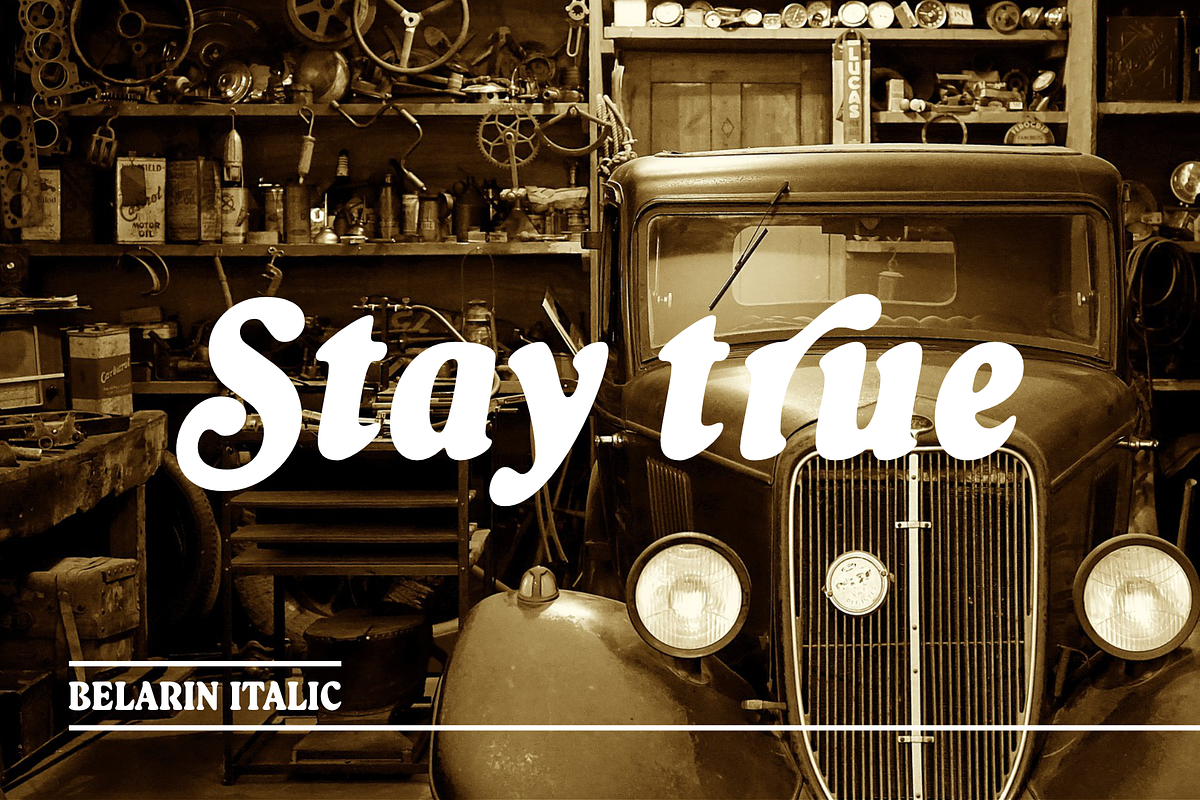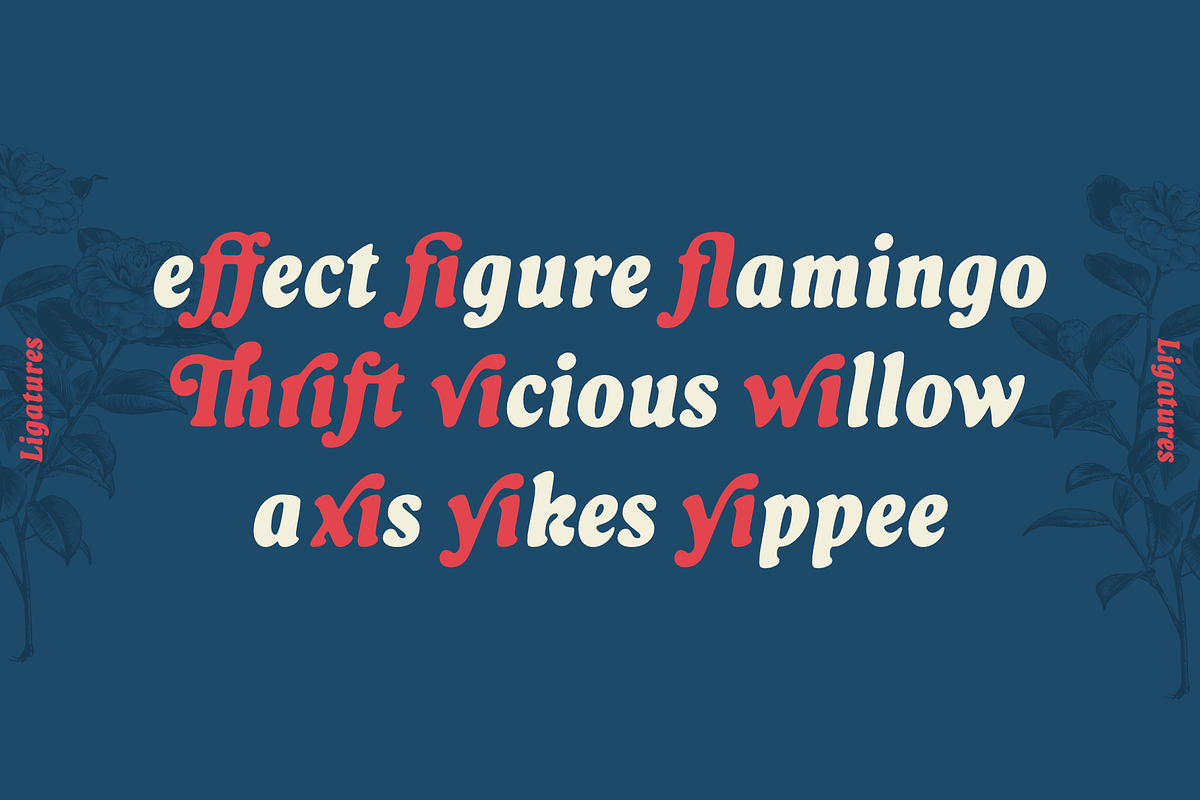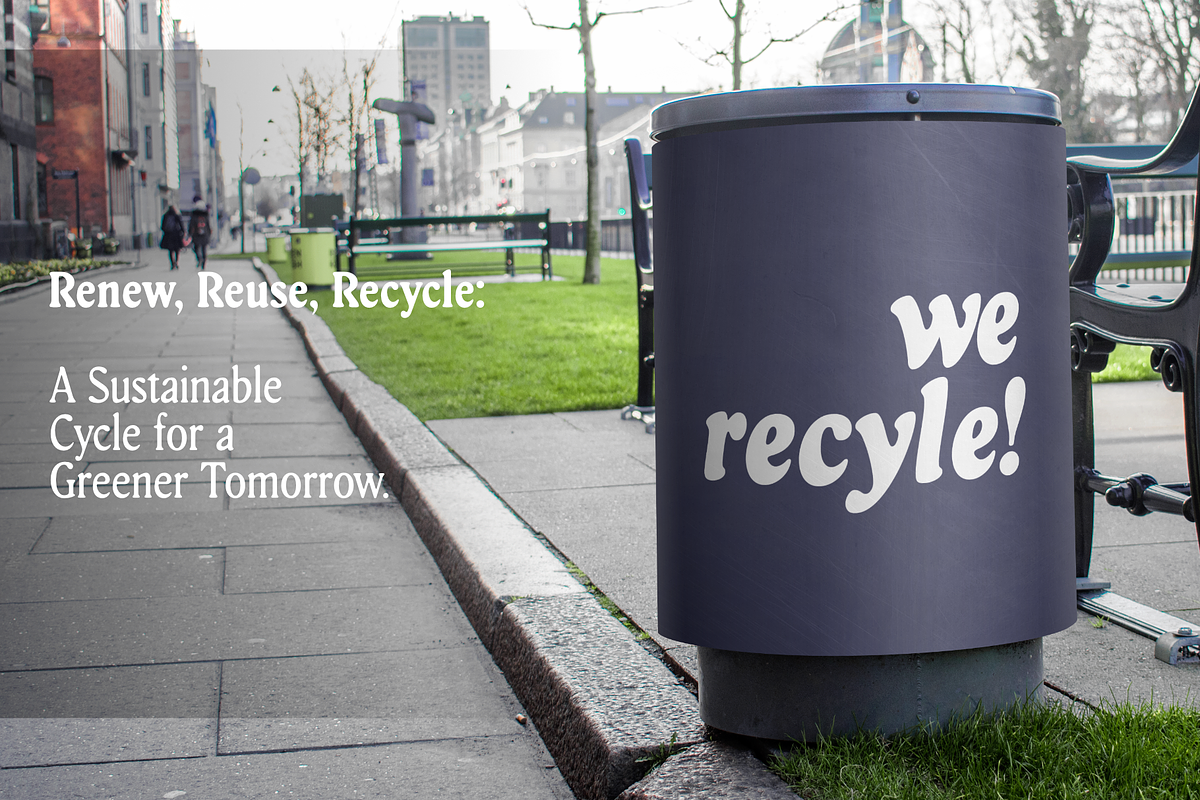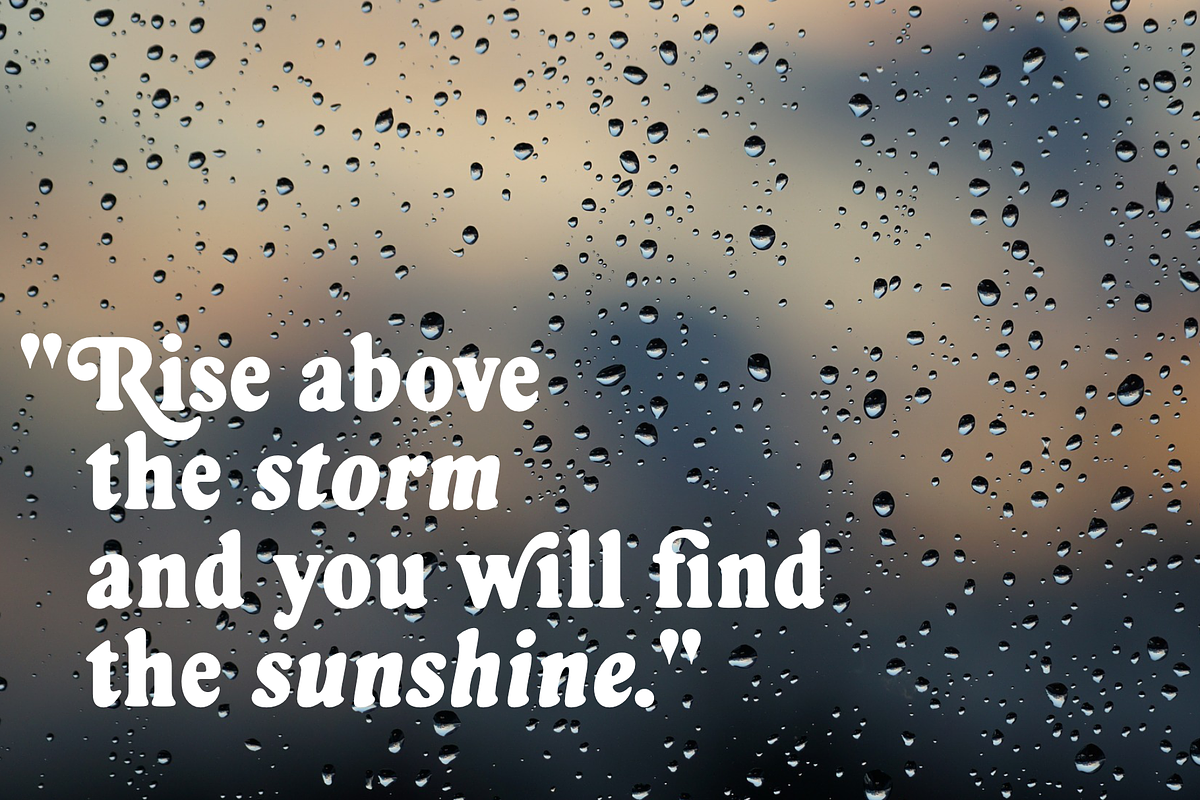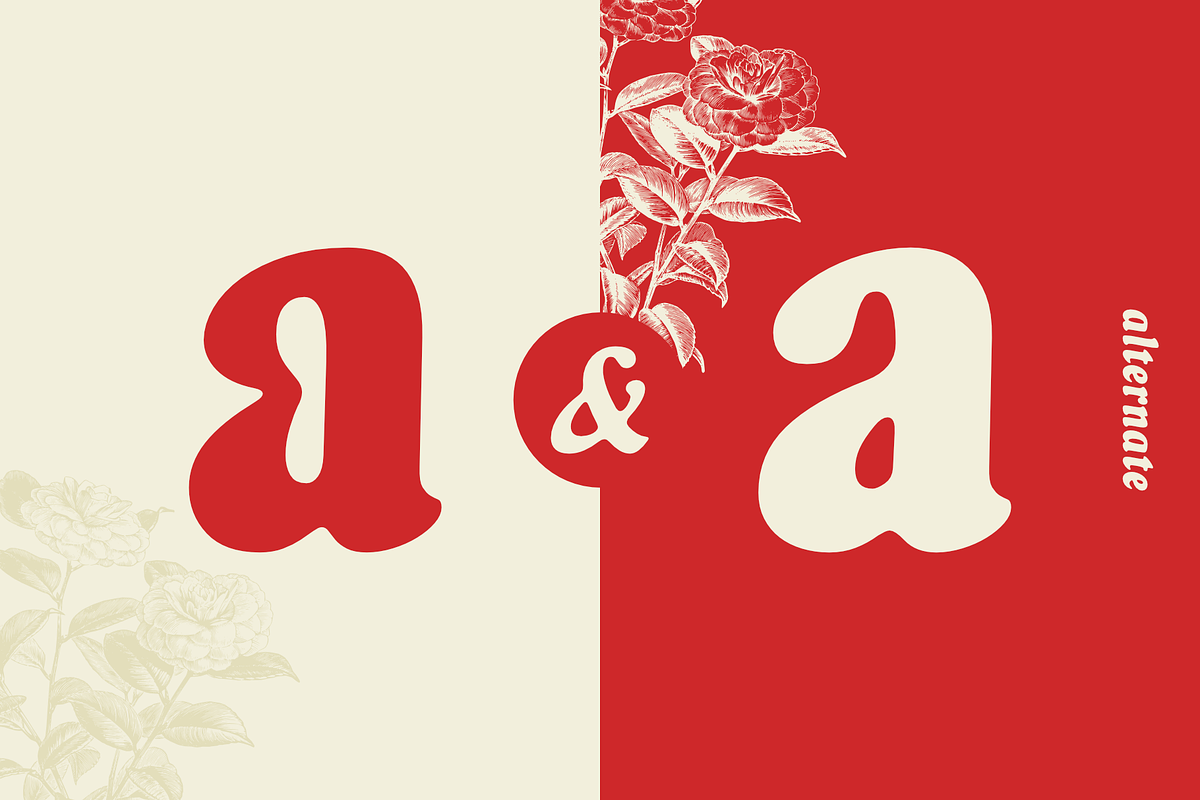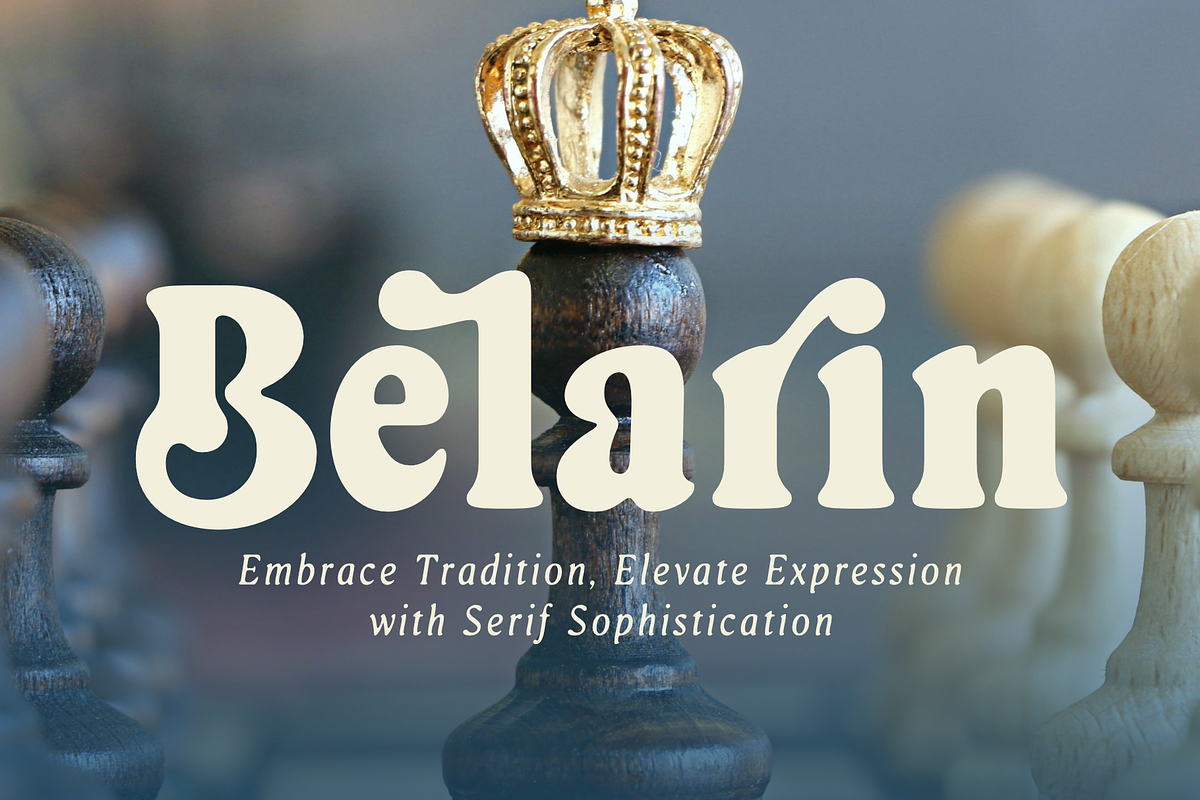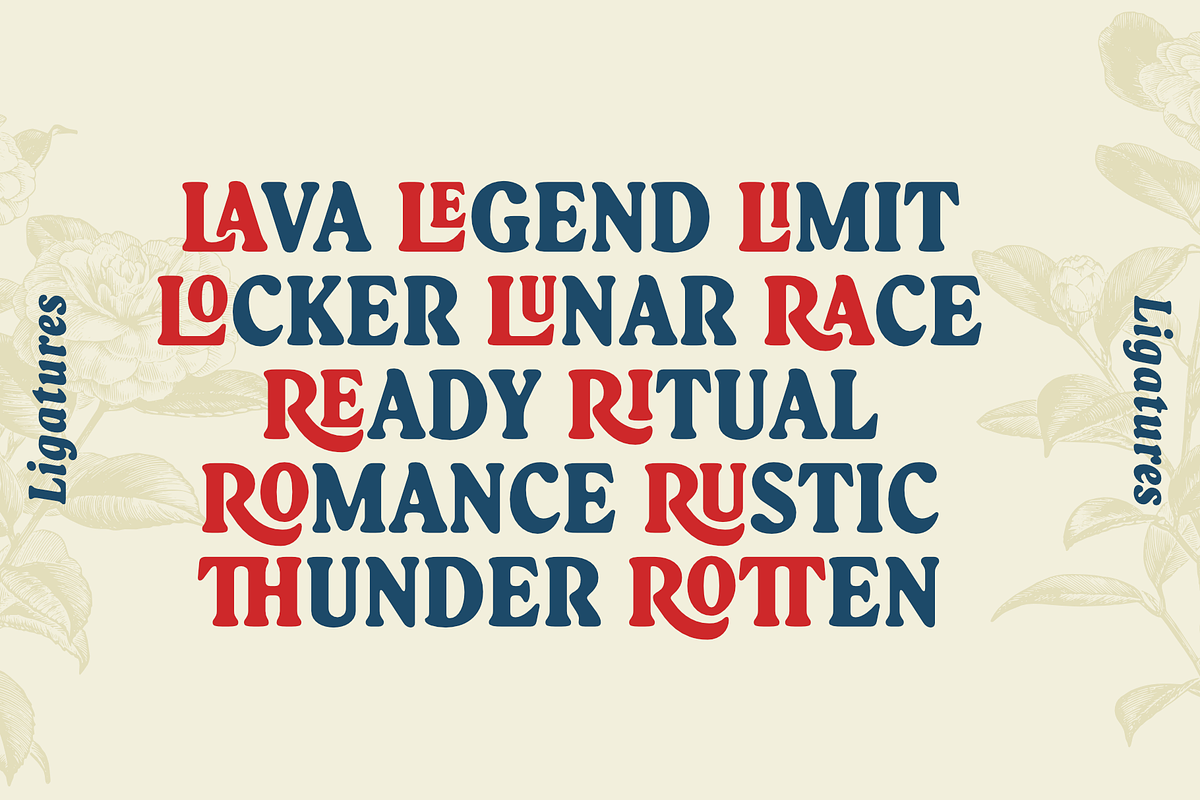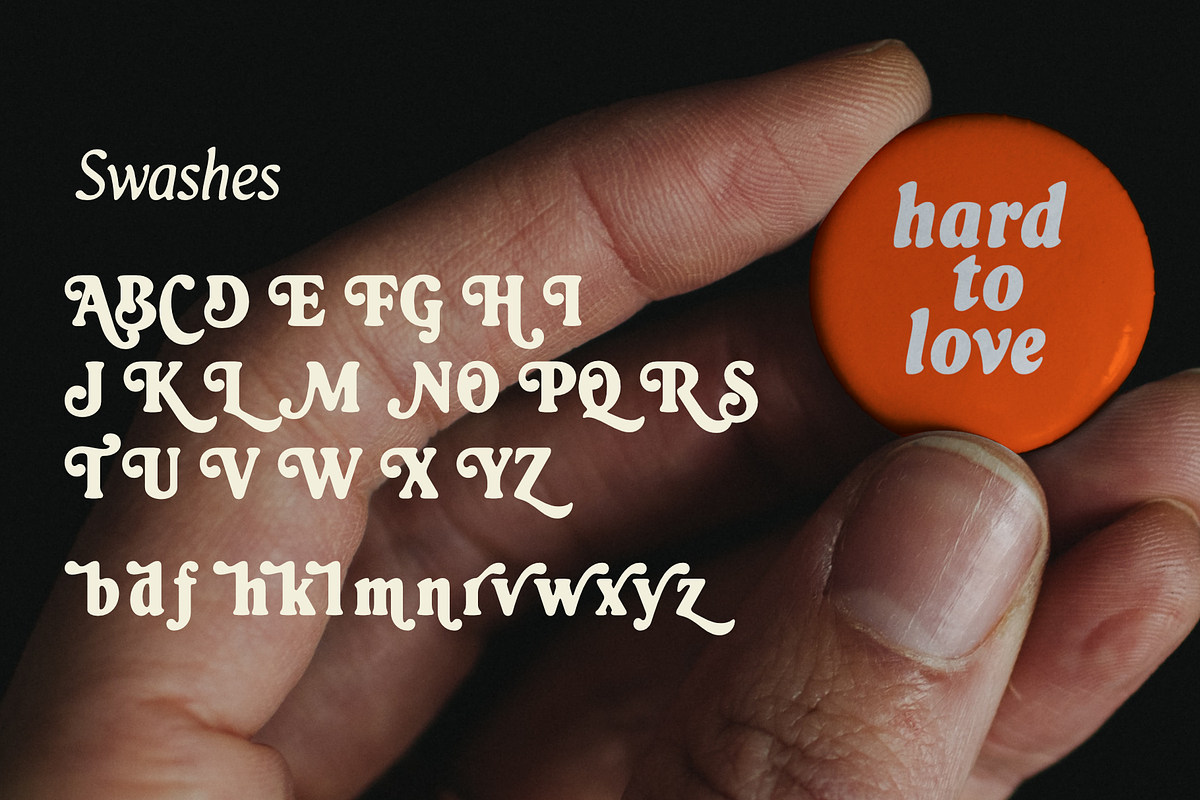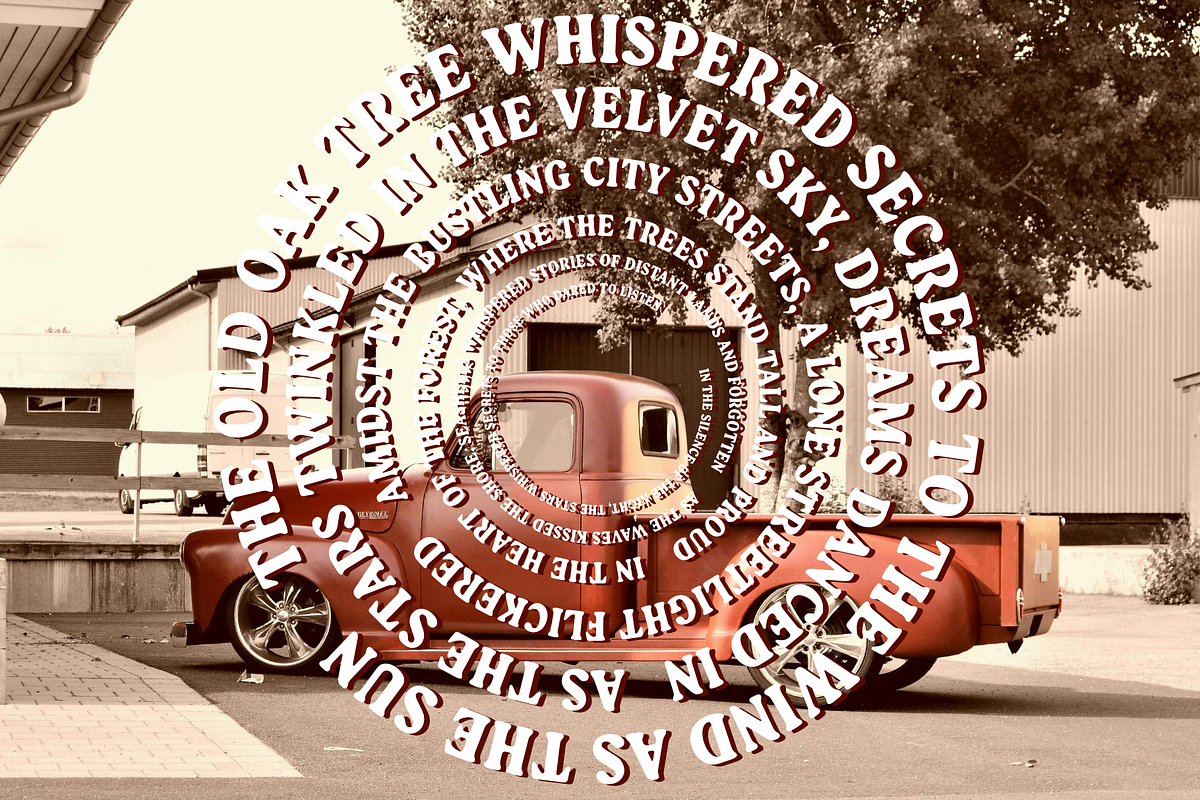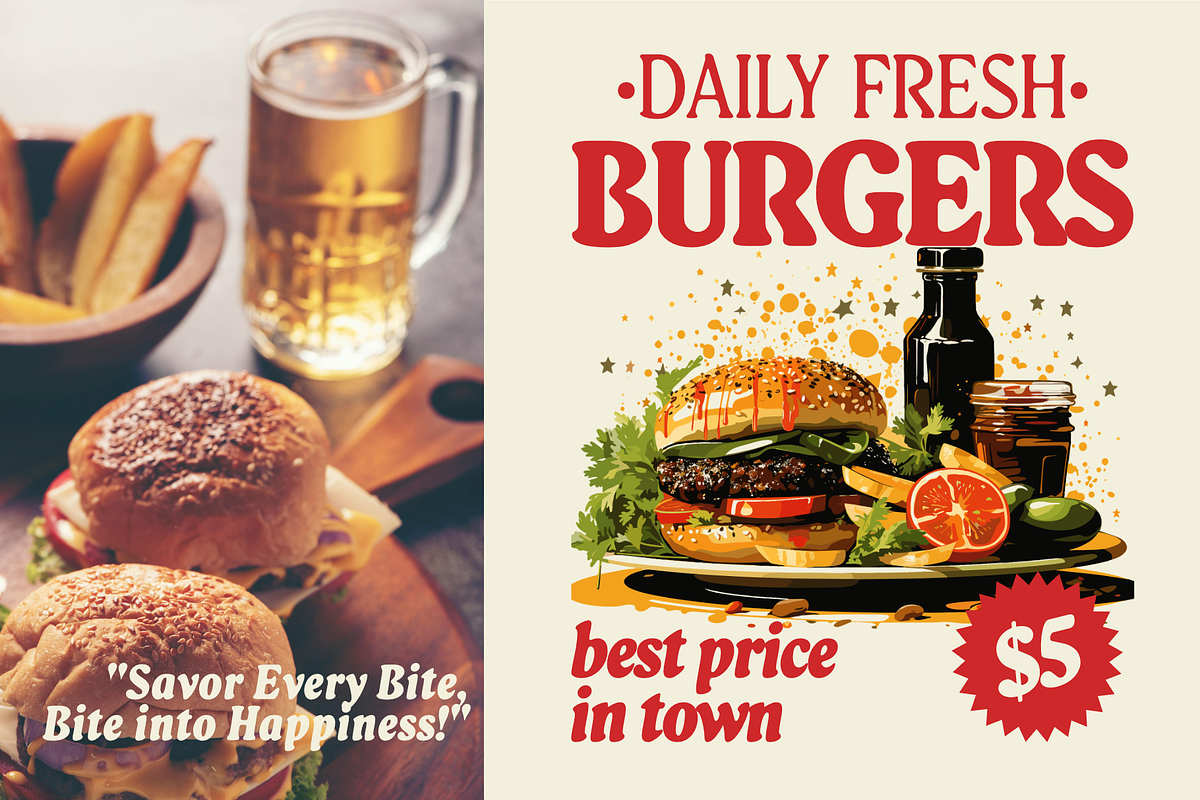
Belarin
Belarin is a charming rounded serif font that seamlessly blends classic elegance with modern flair. Its semi-condensed structure gives it a sleek and sophisticated appeal, perfect for a wide range of design projects. Drawing inspiration from the timeless Cooper font, Belarin adds a playful twist with its soft curves and rounded edges, making it a versatile choice for both print and digital applications. Whether used for headlines, body text, or branding, Belarin exudes warmth and professionalism while maintaining a distinct sense of personality.